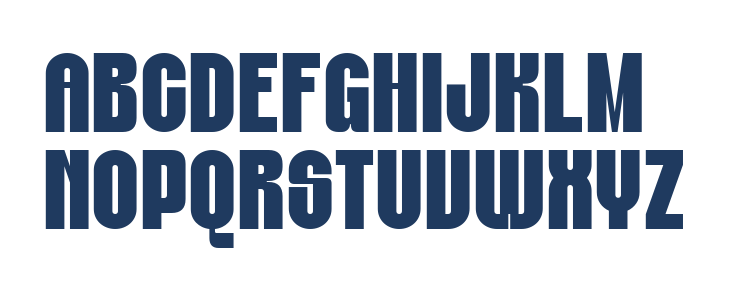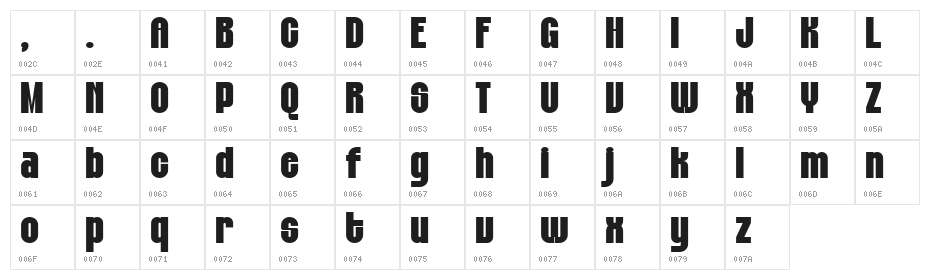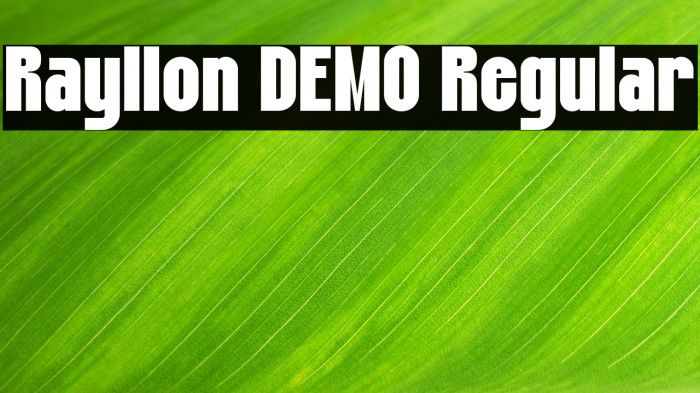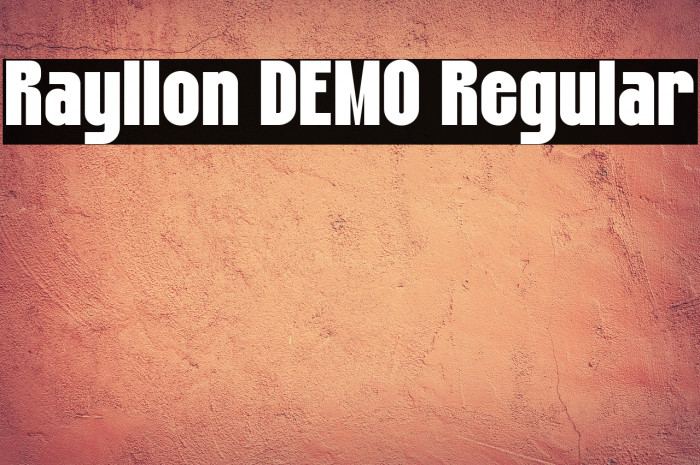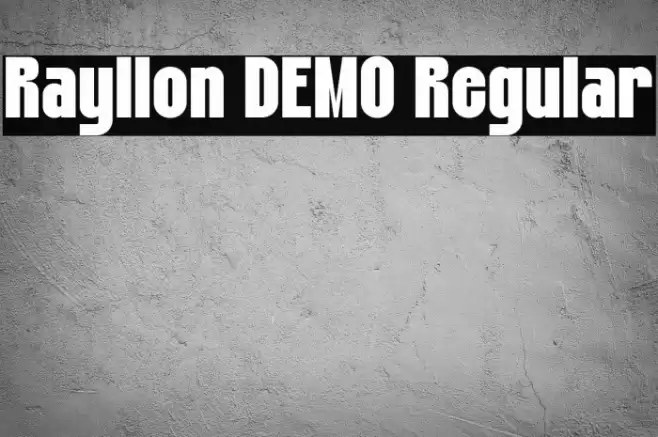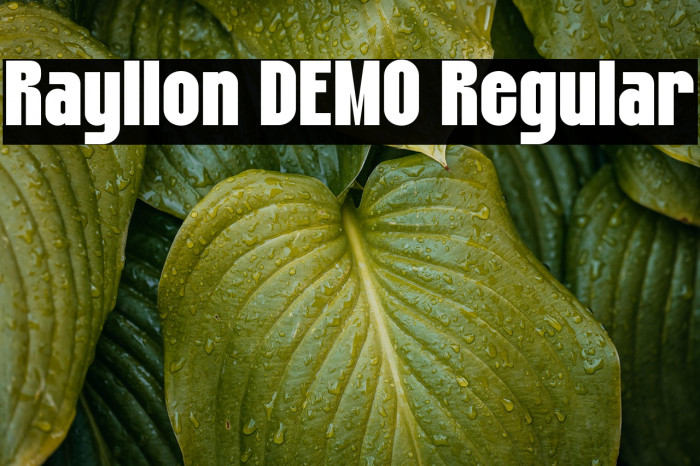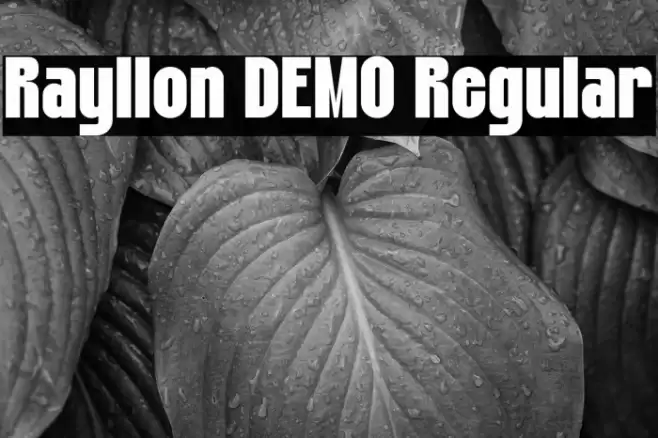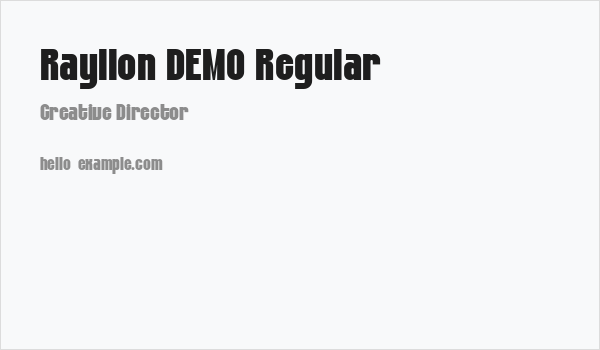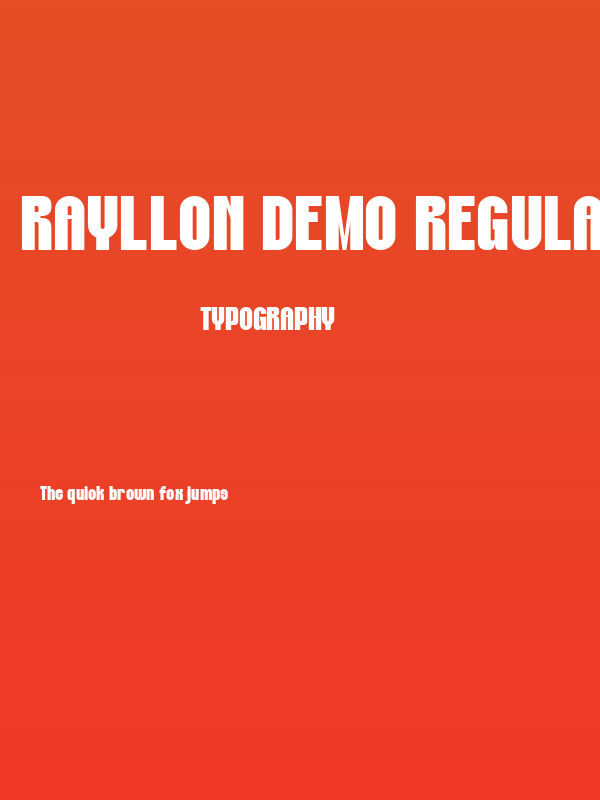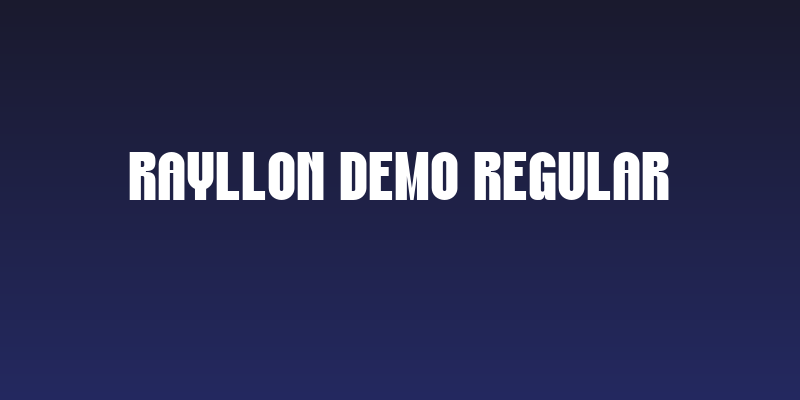
Rayllon DEMO Regular Font
Rayllon DEMO Regular Description
Bold, blocky, sans-serif font with uniform stroke width and rounded edges.
Rayllon DEMO
| Overall Style | Modern, Bold, Friendly |